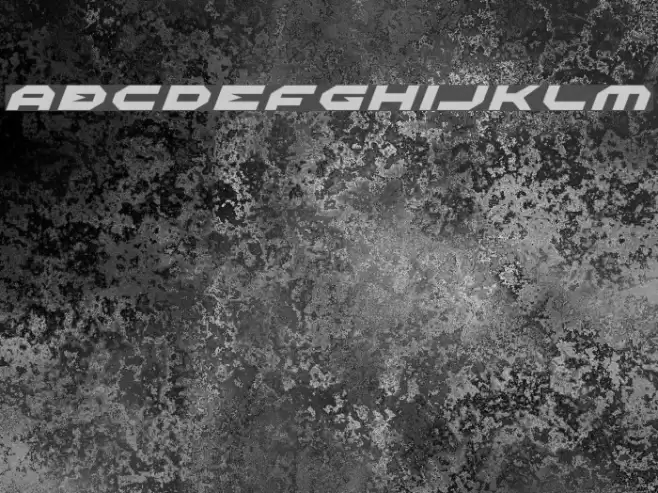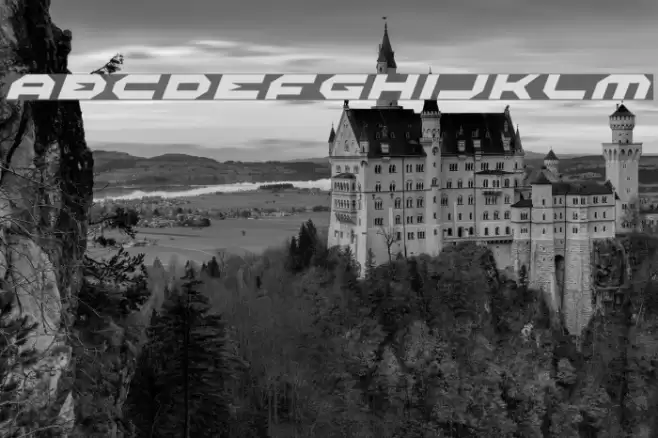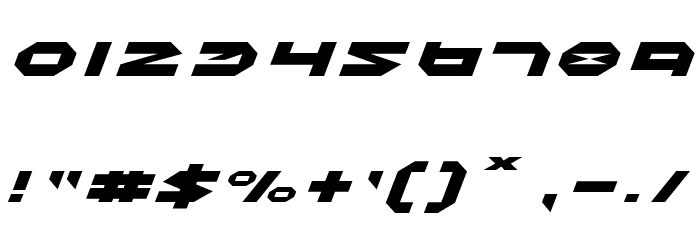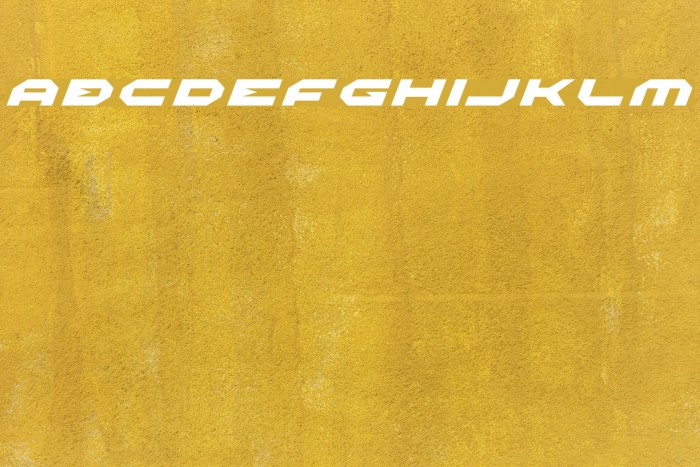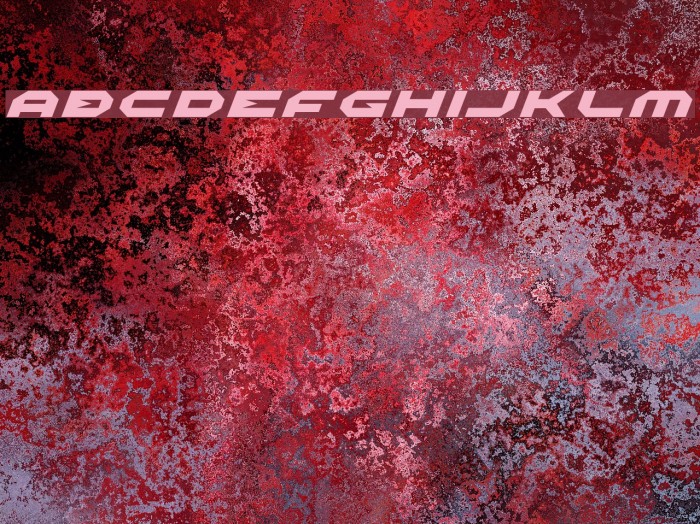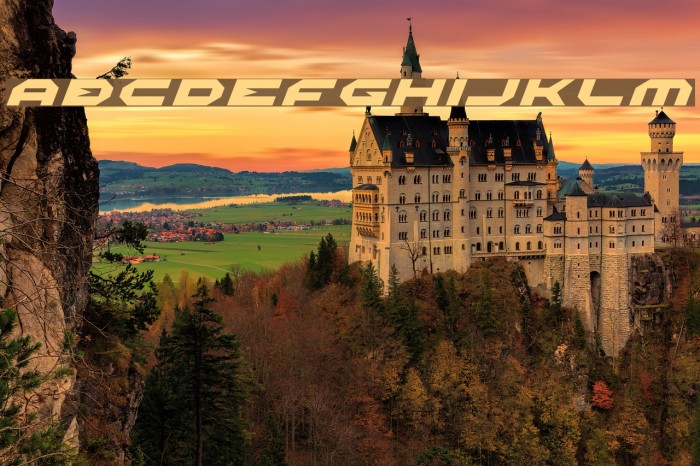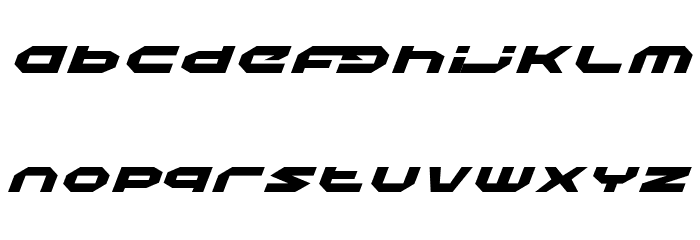
Halo Expanded Italic Font
Halo Expanded Italic Description
This font features a futuristic and angular design, characterized by its bold and expanded letterforms. The italic slant adds a dynamic and forward-moving feel, making it ideal for projects that require a sense of speed and modernity. The geometric shapes and sharp edges give it a distinctive and edgy appearance, suitable for technology-related themes or sci-fi aesthetics. The uppercase and lowercase letters maintain consistency in style, with numerals and special characters following the same design principles. The overall look is both striking and versatile, perfect for making a strong visual impact.
A bold, expanded, and italic font with a futuristic, angular design from Capitals fonts.
- Proposed Projects: Ideal for sci-fi movie posters, tech branding, video game titles, and futuristic event flyers.
- Width: Expanded
- Overall Style: Futuristic